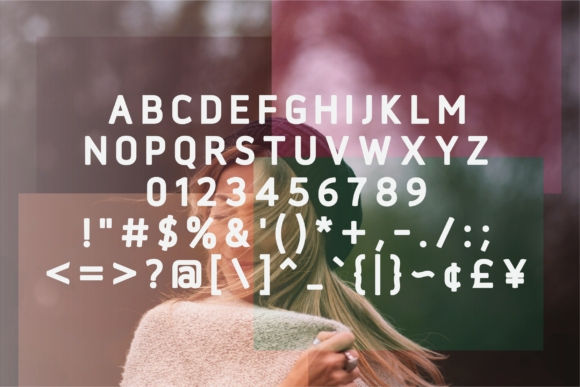
Introduction to Rosalineo Extra-Bold Font
As a designer, you’ve been there – staring at a blank canvas, trying to find the perfect font to bring your creative project to life. You want something that’s not only visually striking but also versatile enough to work across various mediums, from print to digital.
Enter Rosalineo Extra-Bold Font, a typographic tribute to the iconic Helvetica font that’s sure to elevate your designs. With its bold and modern aesthetic, this font is perfect for making a statement in large display sizes or adding a touch of sophistication in smaller body sizes. Whether you’re working on a high-profile campaign or a personal project, Rosalineo Extra-Bold Font is a valuable design resource that’s sure to deliver.
- Features a unique, extra-bold style perfect for making text stand out
- Perfect for designers and artists looking for a bold, eye-catching font for their next project
Honest Review: Rosalineo Extra-Bold Font
I recently had the chance to try out the Rosalineo Extra-Bold Font and I must say it’s been a game-changer for my creative projects. This font is a high-quality addition to any design resource collection, and I’m excited to share my thoughts on it.
- ✨ The font’s bold and modern design makes it perfect for headings and titles, adding a touch of sophistication to any project.
- ⚠️ The font might be too bold for some designs, so be sure to test it out before using it in a final project.
- ⚠️ The font only comes in one weight, so if you need a range of font weights for your project, you might need to look elsewhere.
For the most out of the Rosalineo Extra-Bold Font, use it on a transparent background to create a high-contrast design. This font is perfect for creative projects that require a bold and eye-catching design element.
The Rosalineo Extra-Bold Font is ideal for use in headlines, banners, and titles in your design projects. It’s also a great design resource for creating a bold and eye-catching visual identity for your brand or project.